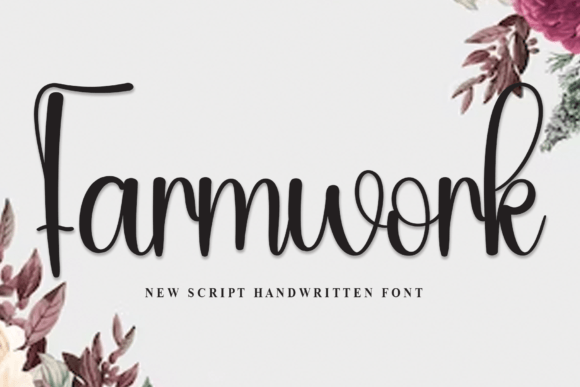
Welcome to the world of Farmwork Font, a charming and endearing handwritten font that exudes warmth and personality. Step into a world of heartfelt expressions and heartfelt designs with Farmwork Font.
Immerse yourself in the beauty of Farmwork Font, a script font that dances across your screen with effortless grace. Its smooth curves and playful lines create a visual symphony that captivates and entrances. Farmwork Font is more than just a font; it's an experience that transports you to a realm of creativity and endless possibilities.
Unleash your inner artist and let Farmwork Font guide you in creating breathtaking wedding invitations, heartwarming greeting cards, and captivating social media posts. Its versatility extends beyond the digital world, making it perfect for handmade crafts, personalized gifts, and any project that craves a touch of whimsy and charm.
With Farmwork Font, the ordinary becomes extraordinary. Its unique charm adds a spark of magic to your designs, turning everyday words into works of art. Embrace the power of Farmwork Font and watch as your creations come alive with a touch of playfulness and sophistication.
Discover the joy of Farmwork Font today and embark on a creative journey where imagination knows no bounds. Let your designs bloom with beauty and let Farmwork Font carry your message to the world.